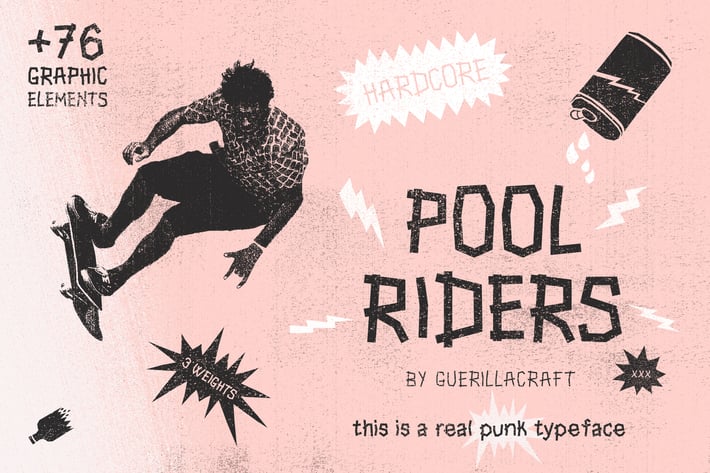
Pool Riders Typeface + Graphic Elements
Pool Riders is a font inspired by punk and skateboarding culture.
What it is for:
gig posters
great for logo design - mix typeface with graphic elements
t-shirt design
making your own zine
etc.
3 weights - thin, regular and bold version
76 graphic elements in a vector .EPS format- made as cut-outs
* the font contains uppercase, lowercase, numbers and extras